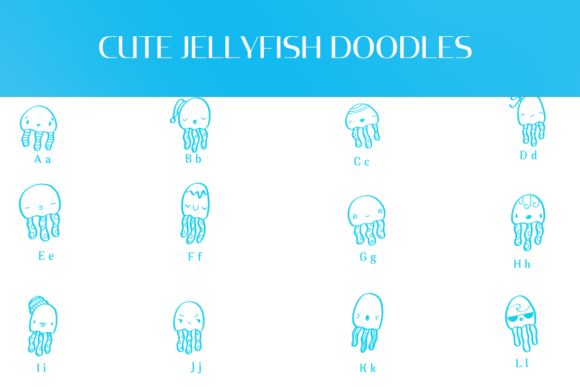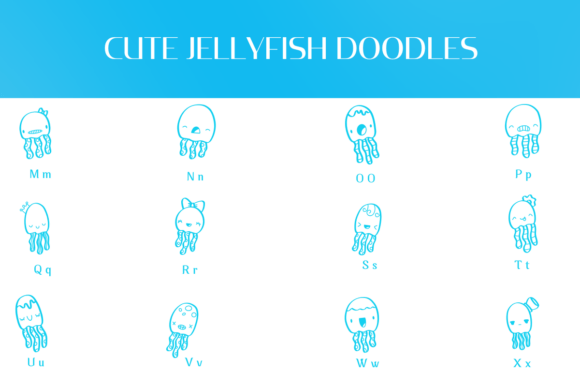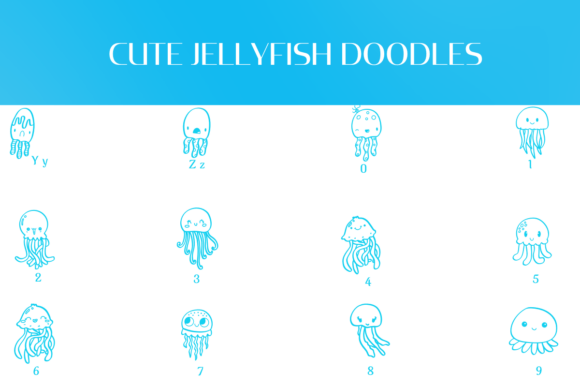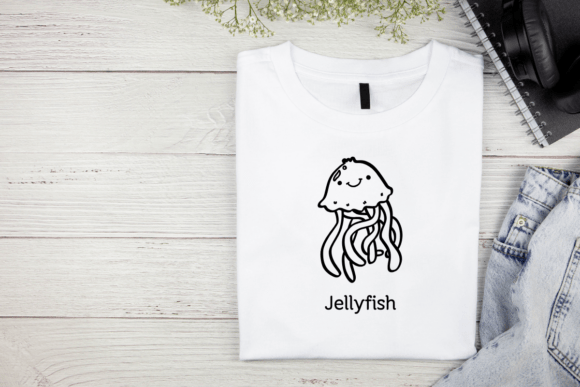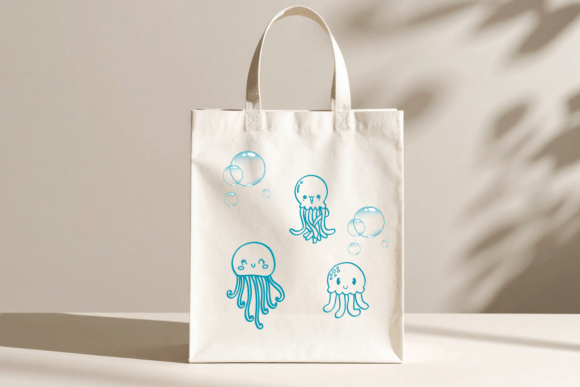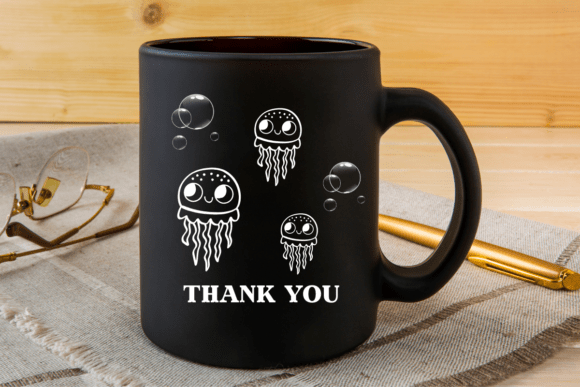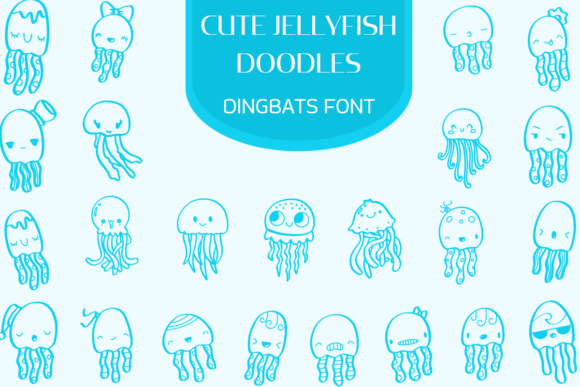
Cute Jellyfish Doodles Font: Add a Touch of Whimsy to Your Designs
Are you looking for a fun and playful font to add a touch of whimsy to your designs? Look no further than the Cute Jellyfish Doodles Font! This delightful dingbats font is perfect for designers and crafters who want to create eye-catching and engaging content. In this article, we’ll explore the features and uses of the Cute Jellyfish Doodles Font, and show you how to make the most of this versatile font.
What is Cute Jellyfish Doodles Font?
Cute Jellyfish Doodles is a unique dingbats font that features adorable jellyfish illustrations. The font is made up of cute and colorful jellyfish doodles that can be used to add a touch of fun and personality to your designs. Whether you’re creating greeting cards, social media posts, or craft projects, this font is sure to delight your audience.
Uses for Cute Jellyfish Doodles Font
The Cute Jellyfish Doodles Font is incredibly versatile and can be used for a wide range of design projects. Here are some ideas to get you started:
• Note-taking and journaling: Add a touch of whimsy to your notes and journal entries with the Cute Jellyfish Doodles Font. Use the jellyfish illustrations to highlight important points or to add decoration to your pages.
• Greeting cards and invitations: Create eye-catching greeting cards and invitations with the Cute Jellyfish Doodles Font. The font is perfect for birthdays, holidays, and other special occasions.
• Banners and signs: Use the Cute Jellyfish Doodles Font to create fun and colorful banners and signs. The font is perfect for parties, events, and promotions.
• Mugs and water bottles: Add a touch of personality to your mugs and water bottles with the Cute Jellyfish Doodles Font. The font is perfect for gifts or personal use.
• Social media posts: Use the Cute Jellyfish Doodles Font to create engaging and eye-catching social media posts. The font is perfect for Instagram, Facebook, and other social media platforms.
• Stationery and crafts: Use the Cute Jellyfish Doodles Font to create custom stationery, stickers, and other craft projects. The font is perfect for scrapbooking, card making, and other paper crafts.
Features of Cute Jellyfish Doodles Font
The Cute Jellyfish Doodles Font has several features that make it a great choice for designers and crafters. Here are some of the key features:
• Unique illustrations: The Cute Jellyfish Doodles Font features unique and adorable jellyfish illustrations that are sure to delight your audience.
• Versatile: The Cute Jellyfish Doodles Font can be used for a wide range of design projects, from greeting cards to social media posts.
• Scalable: The font is scalable, so you can use it for both small and large design projects.
Tips for Using Cute Jellyfish Doodles Font
Here are some tips for using the Cute Jellyfish Doodles Font:
• Experiment with different colors: The Cute Jellyfish Doodles Font looks great in a variety of colors. Experiment with different colors to find the one that works best for your design.
• Use it sparingly: While the Cute Jellyfish Doodles Font is fun and playful, it can be overwhelming if used too much. Use it sparingly to add a touch of whimsy to your design.
• Pair it with other fonts: The Cute Jellyfish Doodles Font pairs well with other fonts. Experiment with different font combinations to find the one that works best for your design.
Font Name Cute Jellyfish Doodles Font
The Cute Jellyfish Doodles Font is a fun and playful font that is perfect for designers and crafters who want to add a touch of whimsy to their designs. With its unique illustrations and versatile uses, this font is sure to delight your audience. Whether you’re creating greeting cards, social media posts, or craft projects, the Cute Jellyfish Doodles Font is a great choice. So why not give it a try and see what amazing designs you can create?